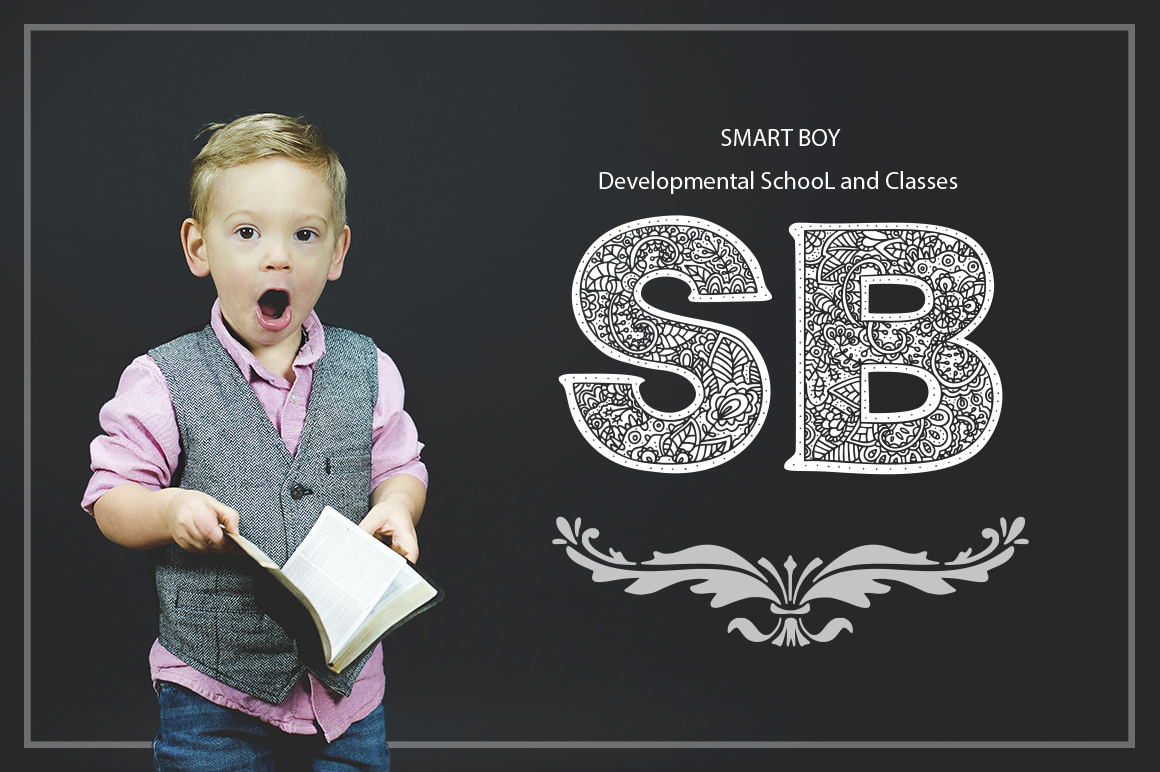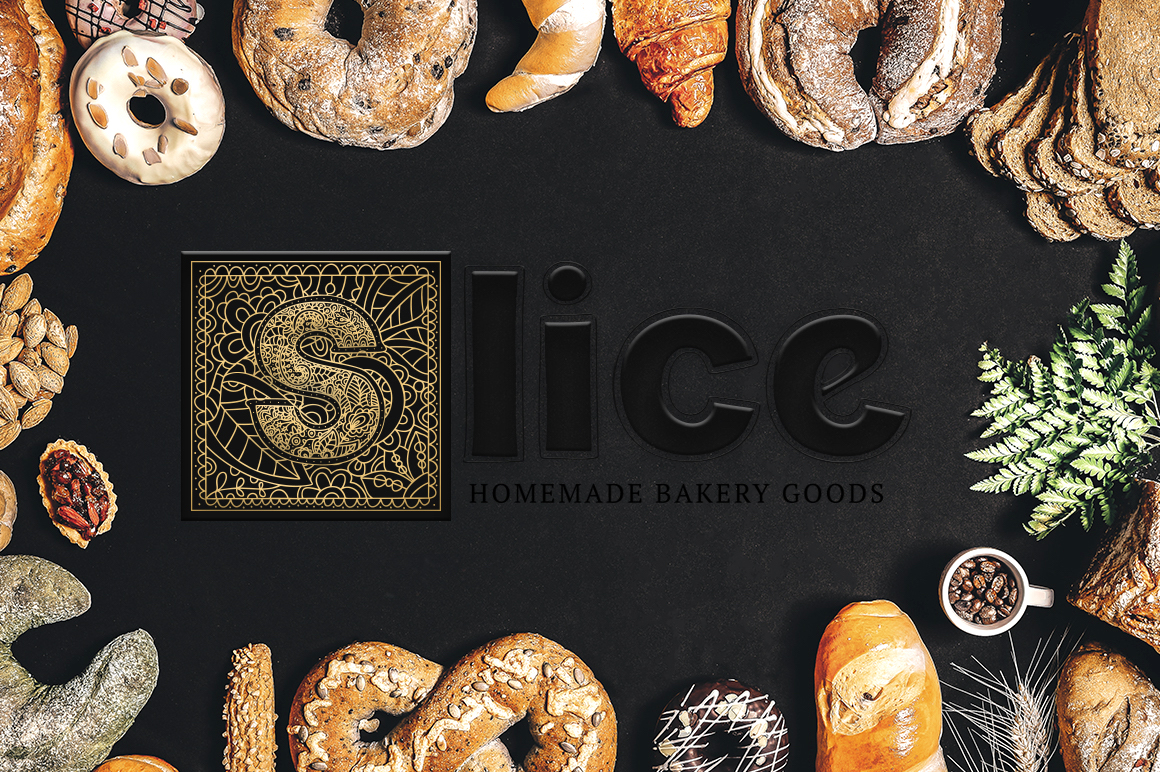
The Monogram Font Family includes 5 extremely elegant and breathtakingly detailed fonts, with each letter being a detailed art piece that can stand alone or be paired flawlessly. Odd looking and creative, Monogram were crafted for the most unique and ornate touch available for your design projects.